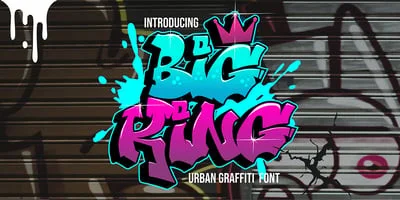
Big King Graffiti Font
Big King Graffiti Font is ideal for urban street art exhibitions, hip-hop culture campaigns, underground music venues, street fashion brands, graffiti artist portfolios, urban youth marketing, breakdancing events, street art festivals, rebellious lifestyle brands, and commanding applications that celebrate the raw power and artistic sovereignty of street culture expression.
What makes Big King Graffiti Font truly exciting is its commanding embodiment of street art royalty and urban cultural dominance that captures the bold authority and artistic supremacy of master graffiti artists who rule the streets through creative excellence. This exceptional typeface combines royal confidence with street authenticity, featuring bold letterforms and king-sized character that convey both artistic mastery and urban sovereignty. The font's regal street personality and graffiti kingdom authority make it perfect for artists and brands seeking to communicate creative dominance, street credibility, and the transformative power of urban art that commands respect and establishes artistic territory through skill and creative vision.
The Big King Graffiti Font family includes multiple weights and styles: Regular, Bold, Heavy, Royal, and Supreme variations designed for maximum street impact. Each family member maintains the distinctive commanding character while offering flexibility for diverse urban applications and street art branding systems. The comprehensive character set supports street typography needs and graffiti design elements, making it suitable for international urban communications.
When you choose Big King Graffiti Font, you're selecting a typography crown that delivers authentic street credibility and artistic royalty to every urban project. This commanding typeface excels in applications where street authority and artistic dominance are paramount, delivering exceptional urban appeal while maintaining graffiti authenticity. Whether you're designing street art brands, urban campaigns, hip-hop materials, or rebellious marketing content, this font provides the street sophistication and artistic sovereignty that resonates with urban culture enthusiasts who appreciate creative mastery, street authenticity, and the powerful artistic expression that establishes creative dominance in the urban landscape.